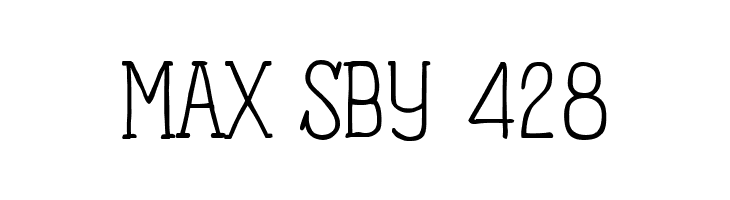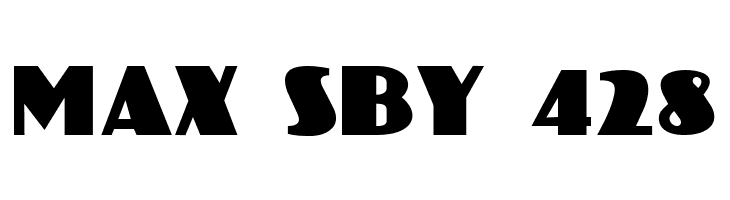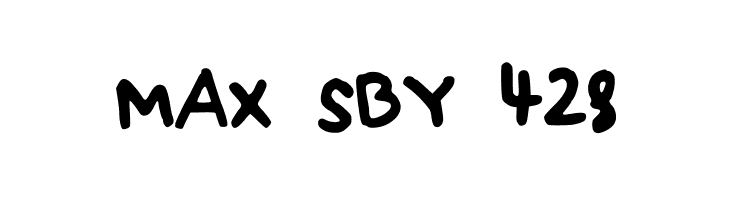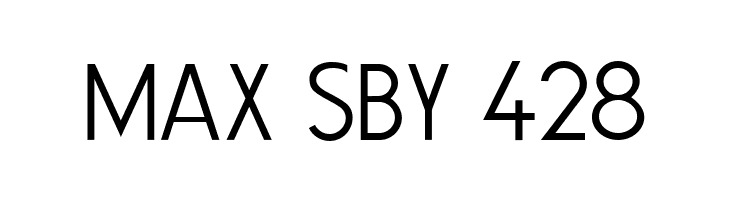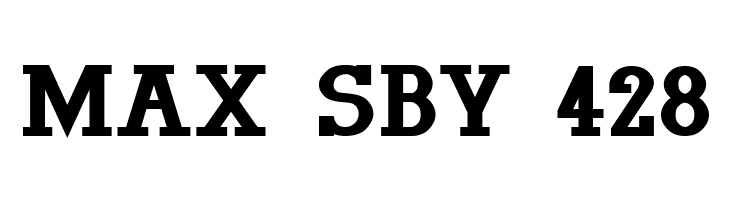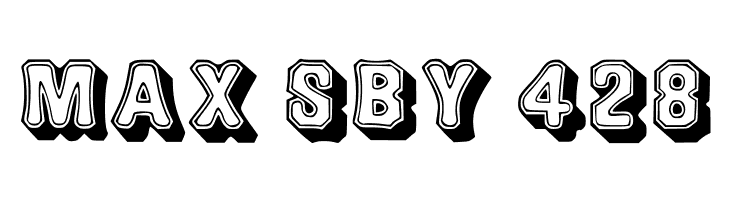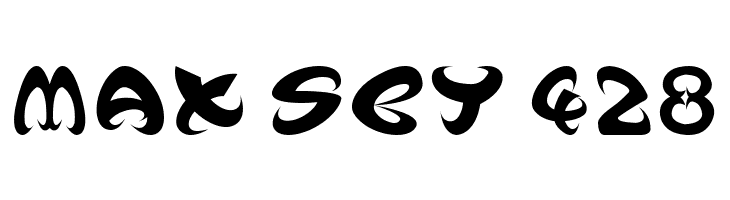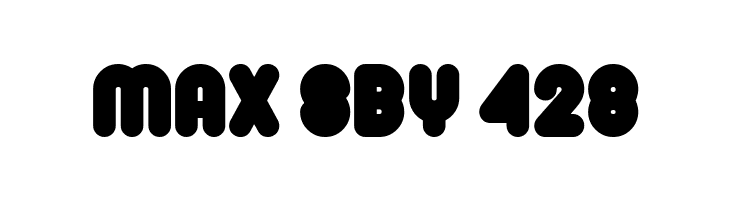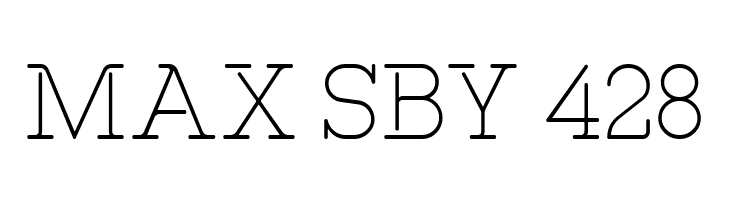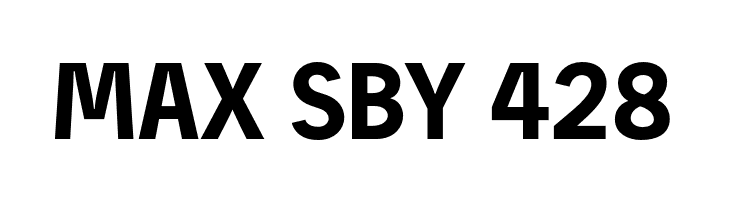
A light, modern serif font with elegant, elongated characters and subtle serifs.
A bold, dramatic font with strong, wide strokes and a slightly condensed appearance.
A sleek, modern sans-serif font with clean lines and balanced proportions.
A bold, strong font with thick strokes and a commanding presence.
A bold, artistic font with dynamic, sweeping strokes and a decorative style.
A bold, playful font with rounded, bubble-like characters.
A modern, geometric font with clean lines and balanced spacing.
A bold, modern sans-serif font with clean lines and a strong presence.
A modern, playful sans-serif font with bold, rounded characters and a unique twist.
A playful, informal handwritten font with smooth, rounded strokes.
A sleek, modern italic font with thin, elongated letterforms and a geometric structure.
A bold, playful font with a handcrafted, vintage feel.
A modern stencil font with geometric lines and an industrial feel.
A playful, hand-drawn font with a bold, sketch-like texture.
A bold, textured font with a vintage, rugged appearance.
A modern Arabic script font with elegant curves and clear numerals.
A modern serif font with sharp serifs and high contrast strokes.
A cursive, italic font with elegant, flowing lines and a handwritten appearance.
A playful, handwritten font with bold strokes and a casual style.
A bold, flowing script font with a lively and dynamic character.
A classic, calligraphic font with elegant, flowing letterforms.
A modern, geometric sans-serif font with balanced proportions and a clean appearance.
A bold, handwritten script font with a playful and cohesive style.
A bold, decorative font with a unique striped gradient effect.